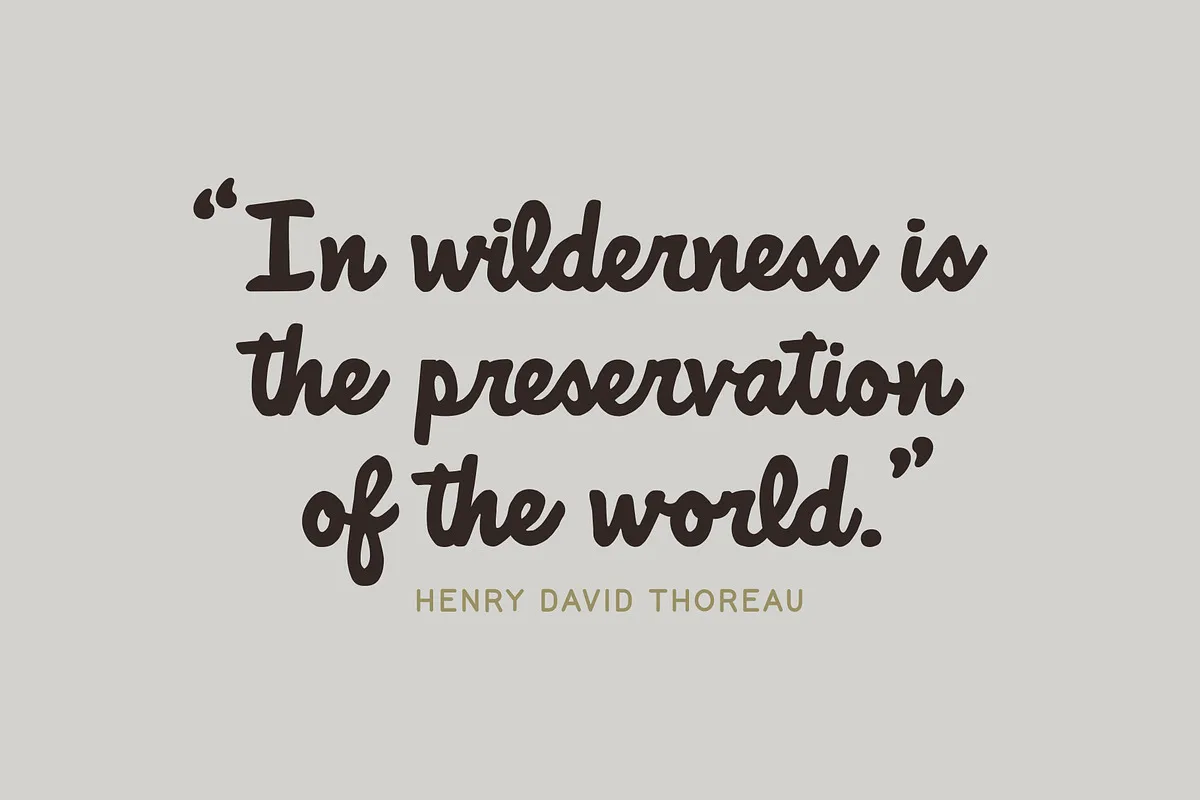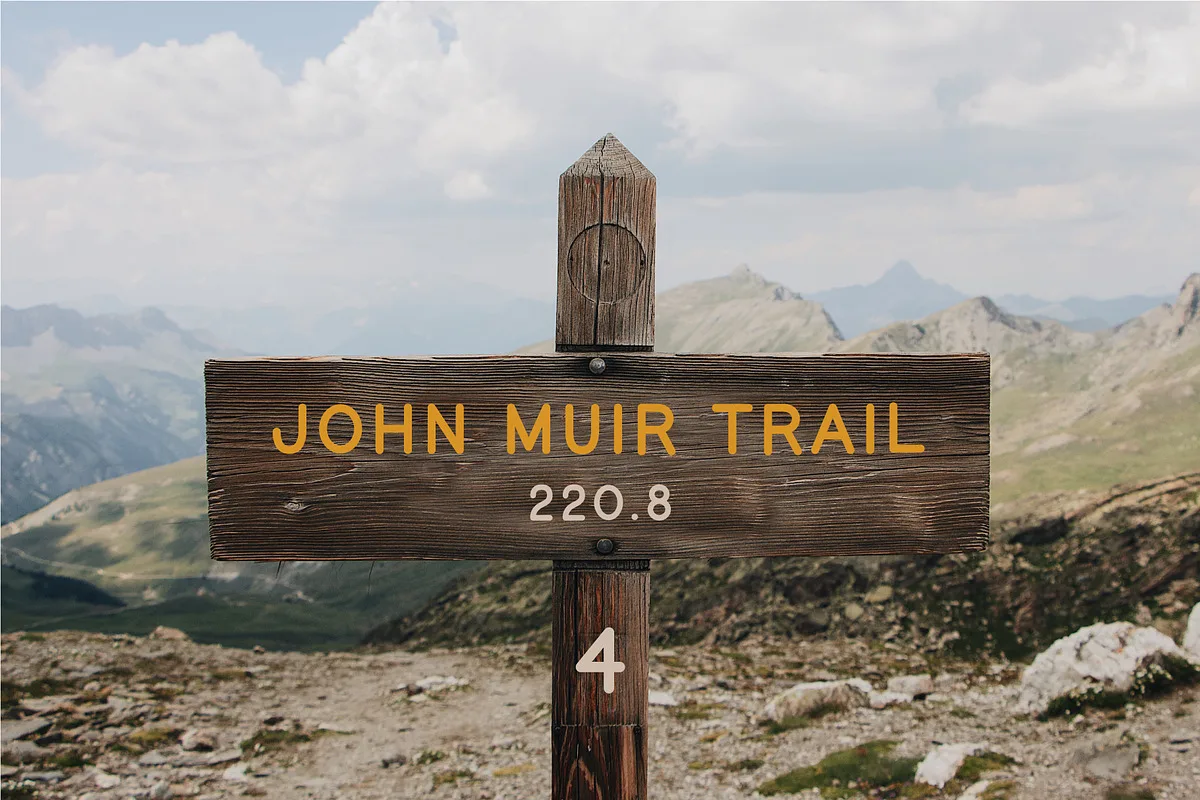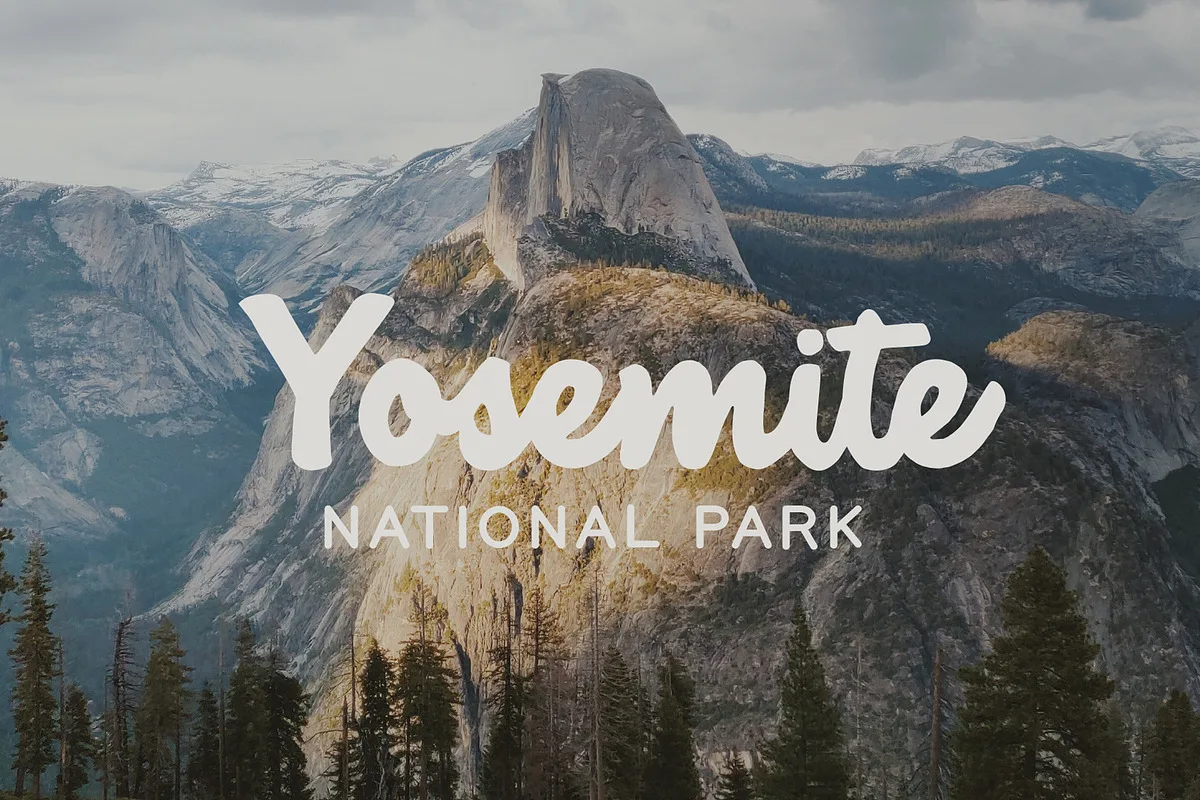
National Forest Font
National Forest is a font duo inspired by the National Park Service signs that are all made using a router bit. It was designed to put the timeless nostalgia of national park signs into a digital typeface.
National Forest has a quirky, retro style and its’ natural imperfections add to its’ charm. The script and print complement each other well for branding, display, or marketing.